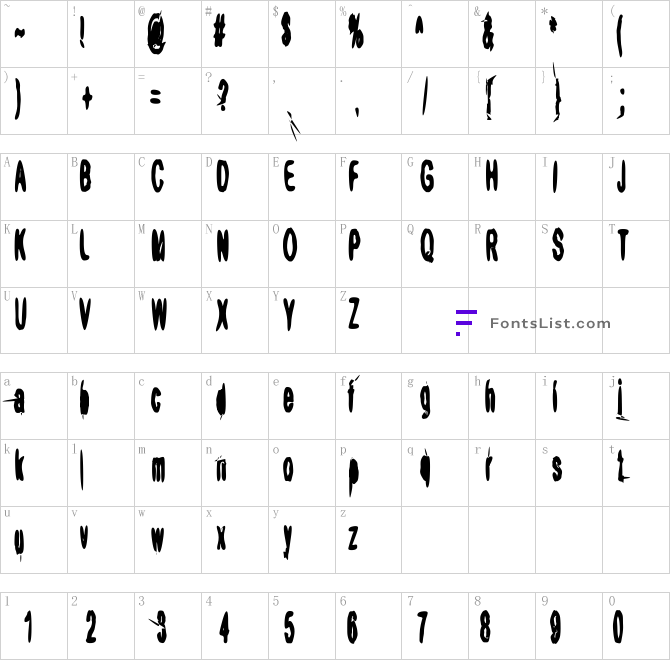
- Font Name:aRape Softular
aRape-Softular.ttf is a very beautiful artistic font, aRape-Softular.ttf is widely used in the design and printing of various books and pictures,aRape-Softular.ttf has a strong visual impact,aRape-Softular.ttf is a commonly used font in newspapers, magazines and books, and is used in posters, e-commerce Poster design, store design, logo design, font design and other fields.aRape-Softular.